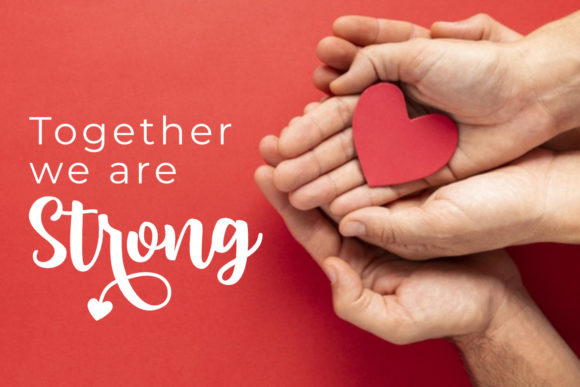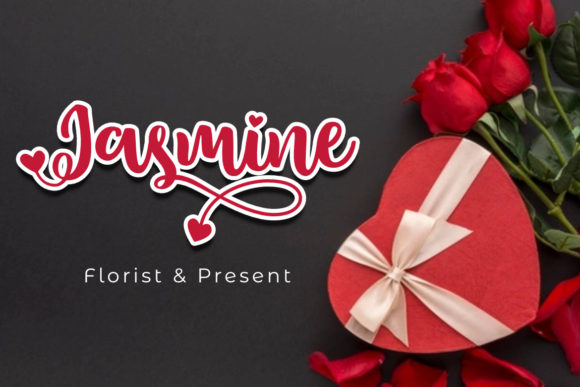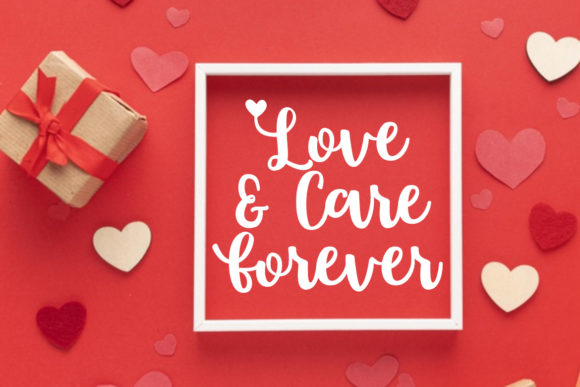
Introduction to Lonystar Font
Have you ever stared at a blank canvas, wondering how to bring your creative idea to life? The moment of inspiration hits, but the words just won’t come together. For designers, this is a familiar feeling, and it’s where the perfect font can be a game-changer. Enter the Lonystar Font, a high-quality, handwritten calligraphy font that’s about to become your new best friend.
Masterfully designed to add a touch of romance and elegance to any project, the Lonystar Font is a valuable resource for designers. With its PUA encoded features, accessing all the glyphs and swashes is a breeze, making it a must-have for any creative project. Whether you’re working on a design that requires a transparent background or simply want to add a touch of sophistication to your next free download, the Lonystar Font is here to help.
Key Features of Lonystar Font
- High-quality design: Lonystar Font is a well-crafted, professional font ideal for creative projects that require a sophisticated look.
- Transparent background: This font features a transparent background, making it perfect for use on images or designs with complex backgrounds.
- Large character set: Lonystar Font features a large character set, including uppercase and lowercase letters, numbers, and punctuation marks.
- High-resolution design: The font is designed at a high resolution (300 DPI), making it suitable for use in print and digital applications.
- Unique design: Lonystar Font boasts a distinctive, modern design that is sure to add a touch of elegance to any creative project.
Honest Review: Lonystar Font
I recently stumbled upon the Lonystar Font, and I must say it’s a great addition to any designer’s toolbox. As a designer, I’m always on the lookout for high-quality fonts that can elevate a creative project. The Lonystar Font delivers in this regard.
What I love about this font is its versatility. It’s perfect for titles, headings, and even body text. The Lonystar Font comes with a transparent background, making it easy to use on any background without worrying about color clashes. This feature is especially useful when working on design projects that require a lot of visual flexibility.
Here are some of the features that I think make the Lonystar Font stand out:
- Transparent background for easy use on any background
While the Lonystar Font is a great addition to any designer’s library, there are a few limitations to be aware of:
- ⚠️ Limited font sizes and styles available
- ⚠️ May not be suitable for complex typography
Overall, I think the Lonystar Font is a solid choice for designers looking for a high-quality font that’s easy to use. With its transparent background and free download, it’s a great design resource to have in your toolkit. Just be aware of its limitations, and you’ll be good to go! ✨
Tips for Getting the Most Out of Lonystar Font
For optimal results, use the Lonystar Font with a high-quality image or background to create a visually appealing design. You can also experiment with different font sizes and styles to create a unique look.
The Lonystar Font is ideal for creative projects such as logos, brochures, business cards, and social media graphics. Its high-quality design makes it perfect for showcasing your brand’s identity.